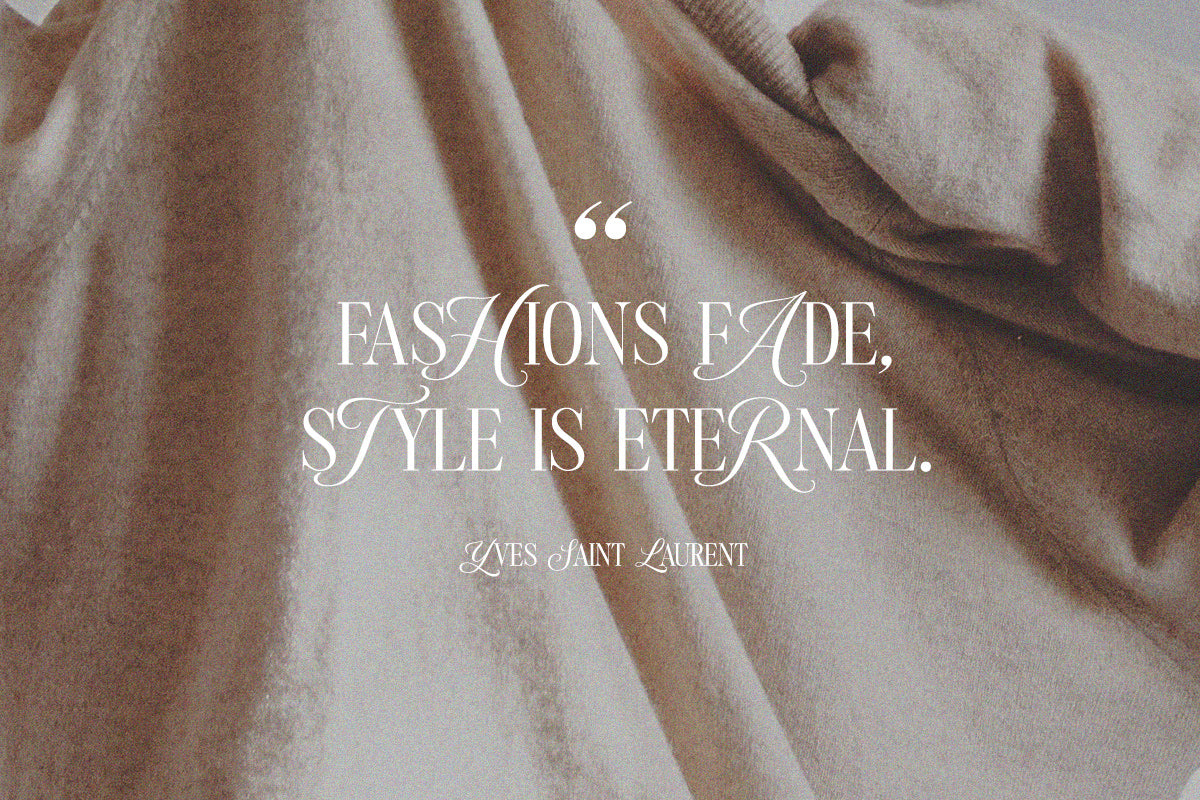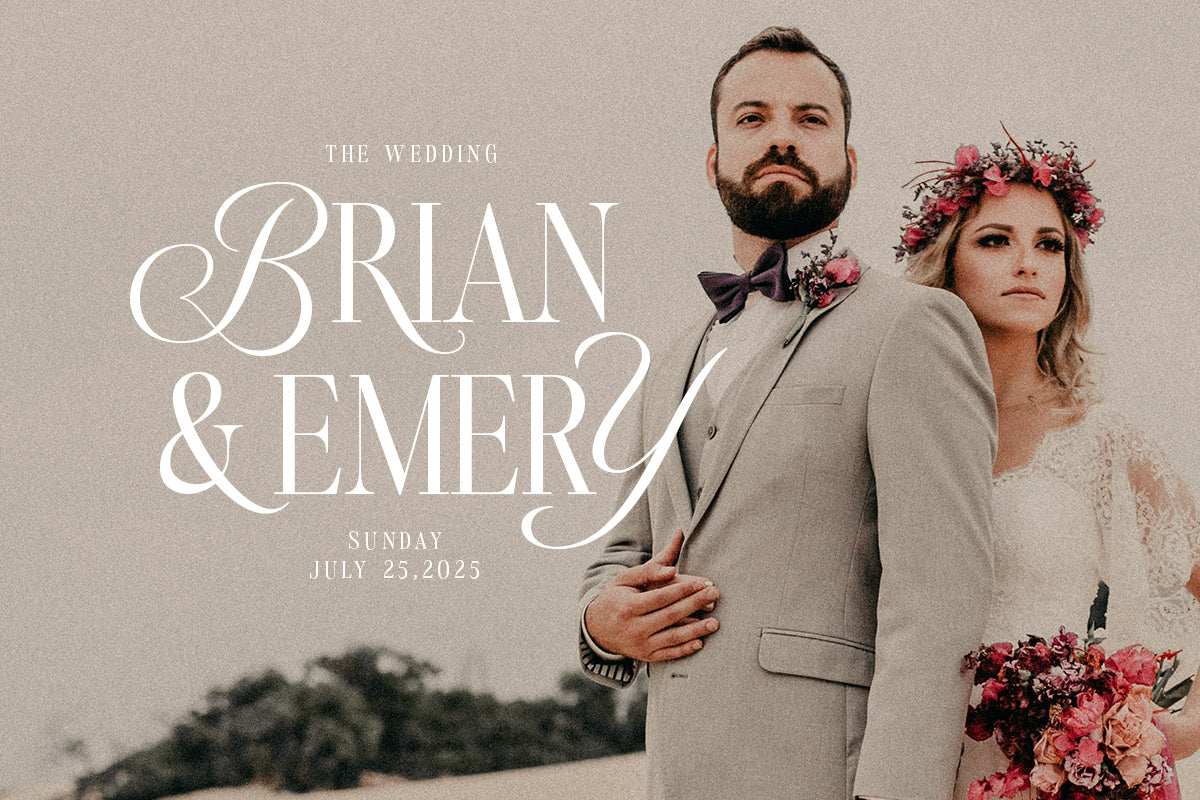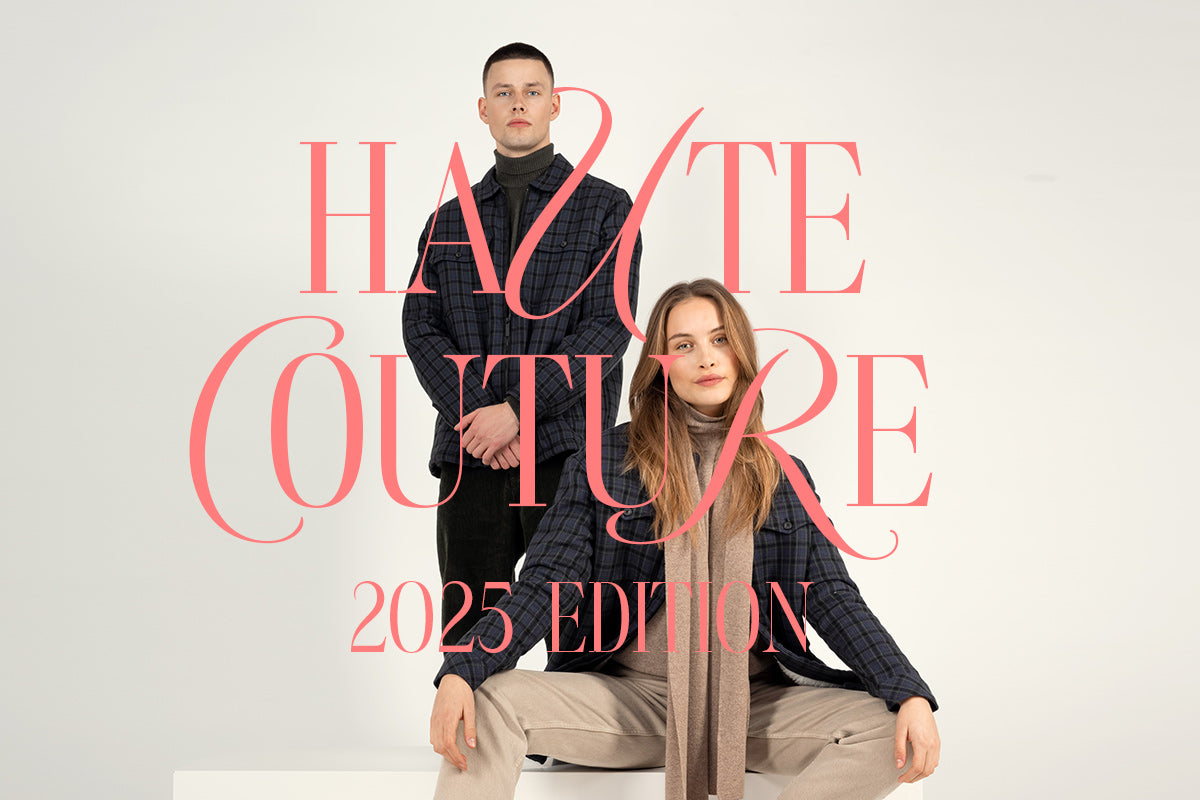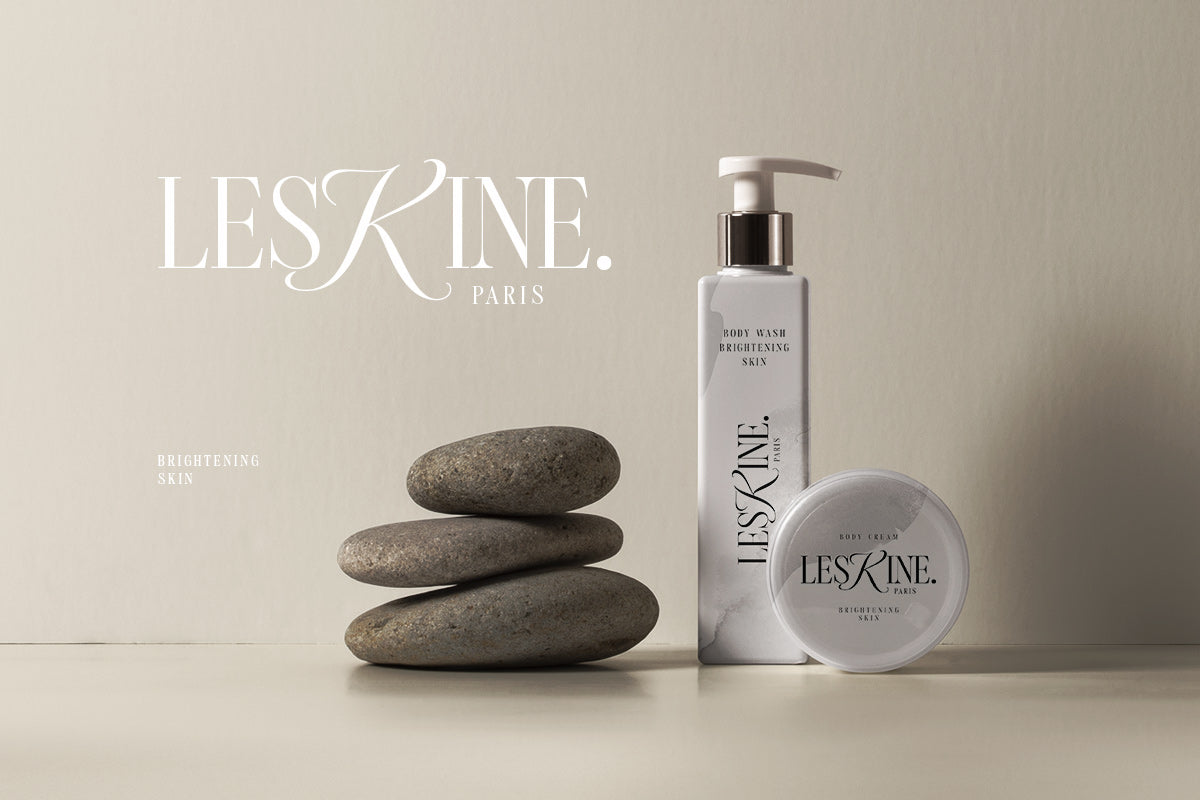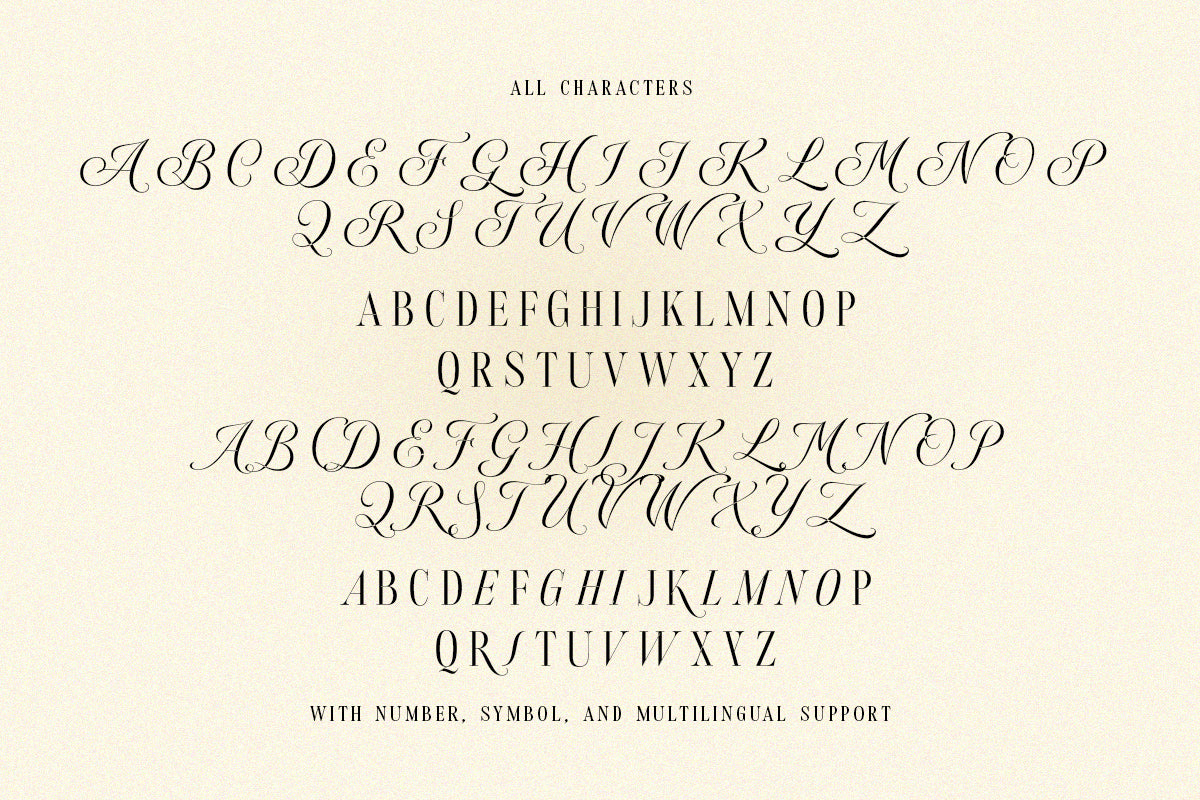
Androgy Display is a sophisticated serif with two styles in one font. It has a unique combination of script, uppercase and serif as the lowercase. Perfectly to be applied to the other various formal forms such as invitations, labels, logos, magazines, books, greeting/wedding cards, packaging, fashion, make up, stationery, novels, labels or any type of advertising purpose.
Two style in one font
numbers and punctuation
multilingual
alternates